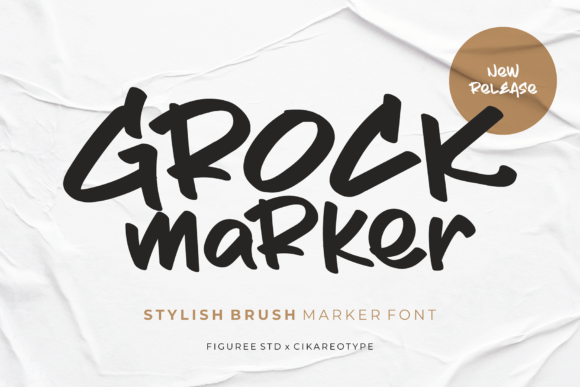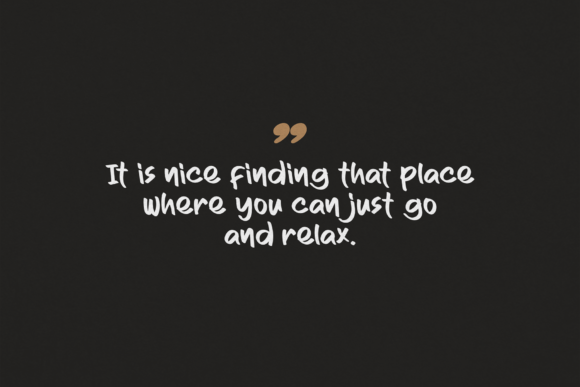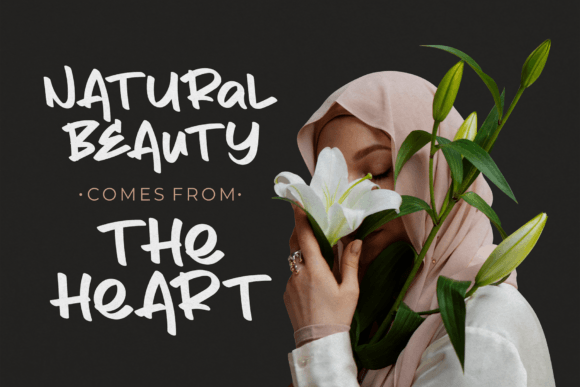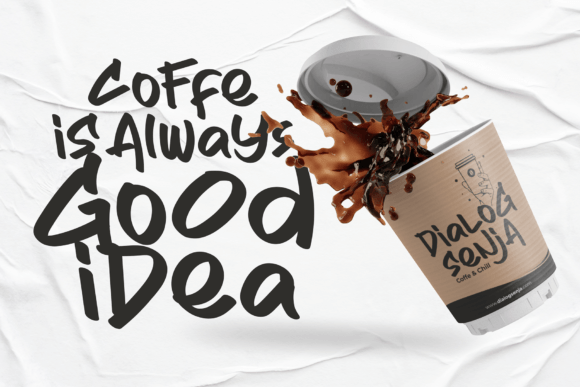
Grock Marker Font: A Stylish Handwritten Font for Social Media
About the Grock Marker Font
Introducing the Grock Marker Font, a beautifully crafted typeface designed to elevate your creative projects. Grock Marker is a stylish brush marker font. Made in combination with hand lettering, it comes with dramatic movement and it’s great for any next creative project that needs a handwritten and natural touch.
It is ideal for logos, handwritten quotes, product packaging, header, poster, merchandise, social media & greeting cards.
Grock Marker’s bold, expressive strokes are best suited for headlines, short text blocks, and impactful branding elements. It excels in applications like logos, posters, and packaging where its hand-lettered charm adds a personal touch. However, its less-than-optimal legibility makes it unsuitable for body text or UI elements requiring extended readability.
Consider pairing Grock Marker with a clean sans-serif like Open Sans for a balanced contrast, or a classic serif such as Garamond for a more sophisticated feel. For a playful touch, a geometric sans-serif like Futura would provide a modern counterpoint. Avoid pairing it with other highly decorative or script fonts to prevent visual clutter.
The font projects a friendly yet confident personality, ideal for brands aiming for a handcrafted, approachable aesthetic. Think artisan goods, coffee shops, or creative studios. Its energetic nature makes it less appropriate for formal or luxury brands.
Grock Marker Font Usage Examples
Grock Marker Font Example